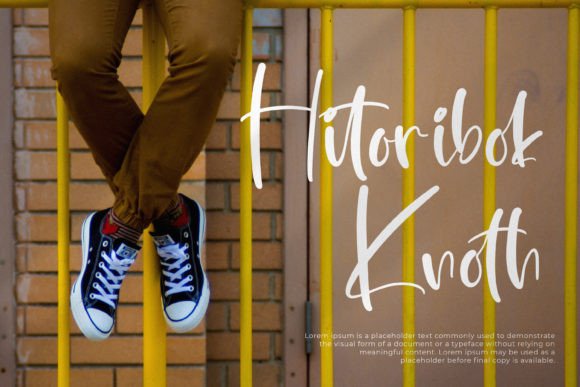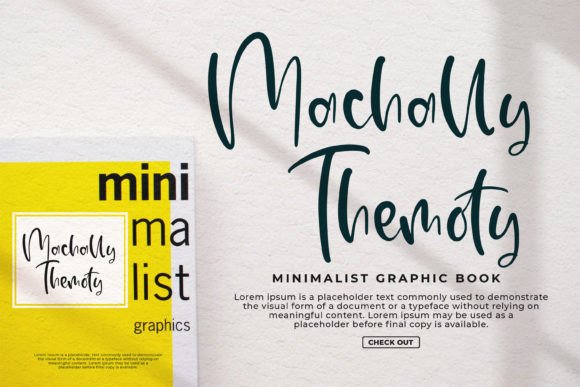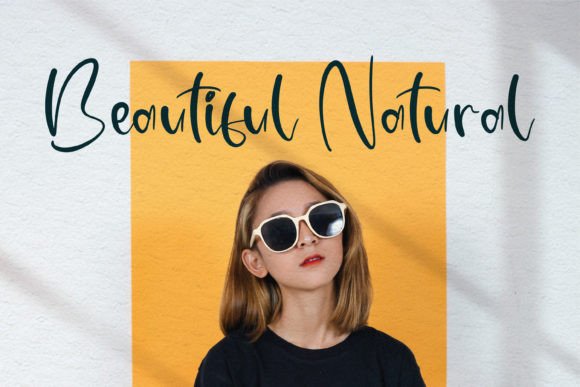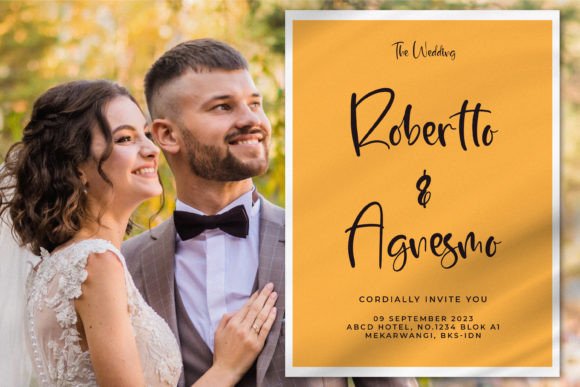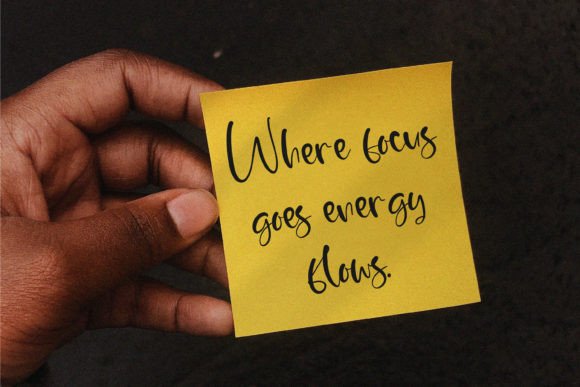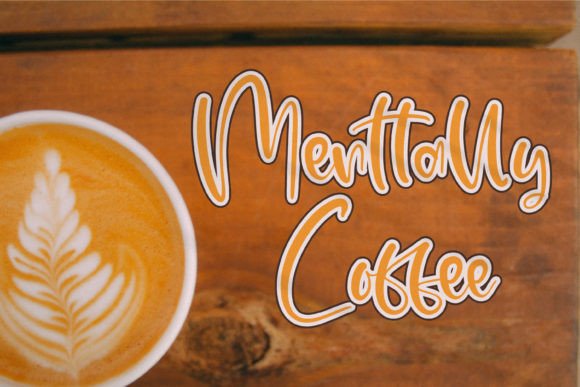
Introduction to Kerlloty Font
Kerlloty – Modern Script Font, from Integritype Studio, is a premium Modern Script Font, perfect for any project like: logos, branding projects, homewares designs, product packaging, mugs, quotes, posters, shopping bags, t-shirts, covers books, business cards, invitation cards, greeting cards, labels, photography, watermarks, special events and all your other luxury projects that require a premium taste.
Key Features of Kerlloty Font
Why Choose Kerlloty Font?
Kerlloty Font offers exceptional quality and versatility, making it a valuable addition to your design toolkit. Whether you’re creating for personal projects or commercial use, Kerlloty Font delivers professional results.